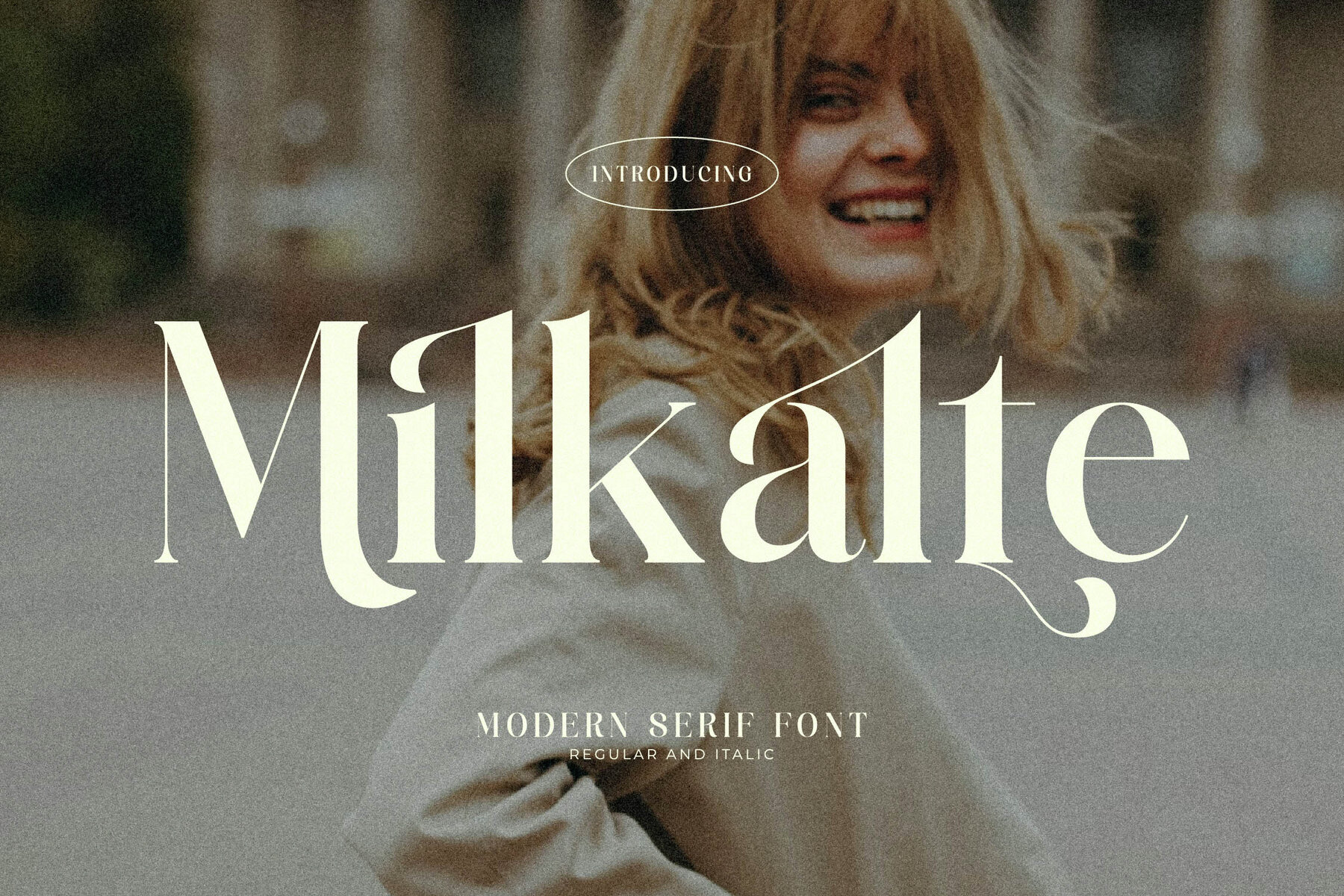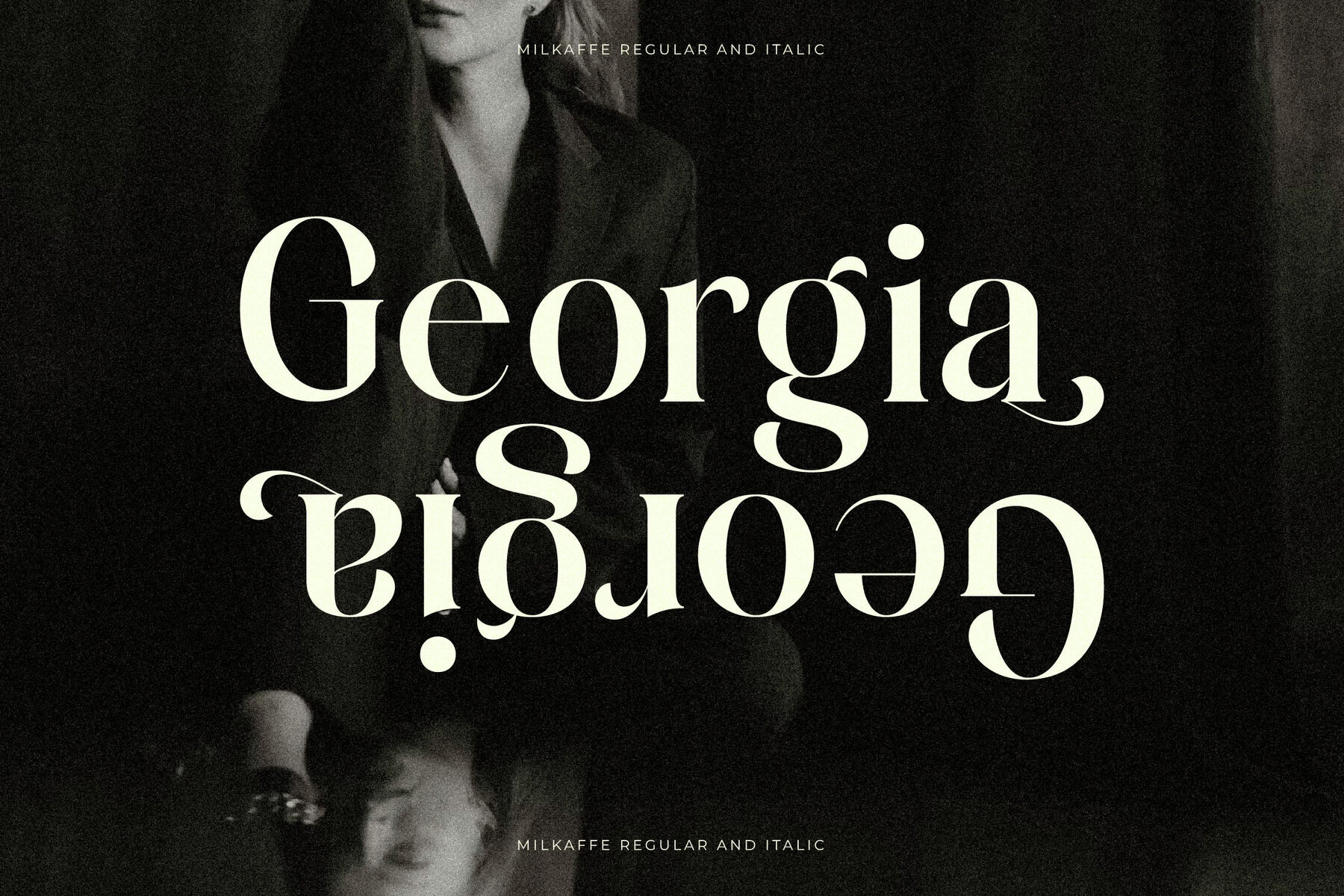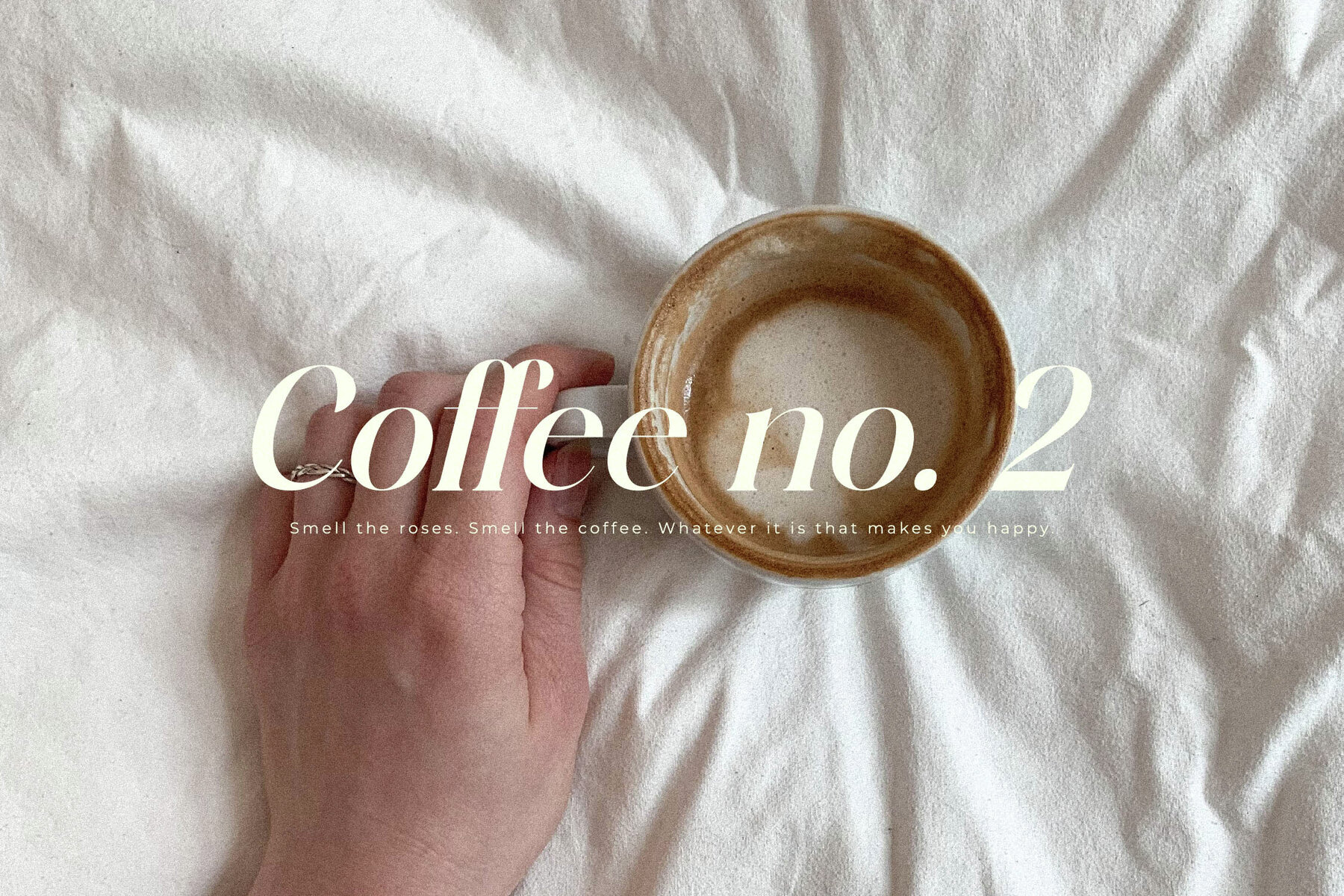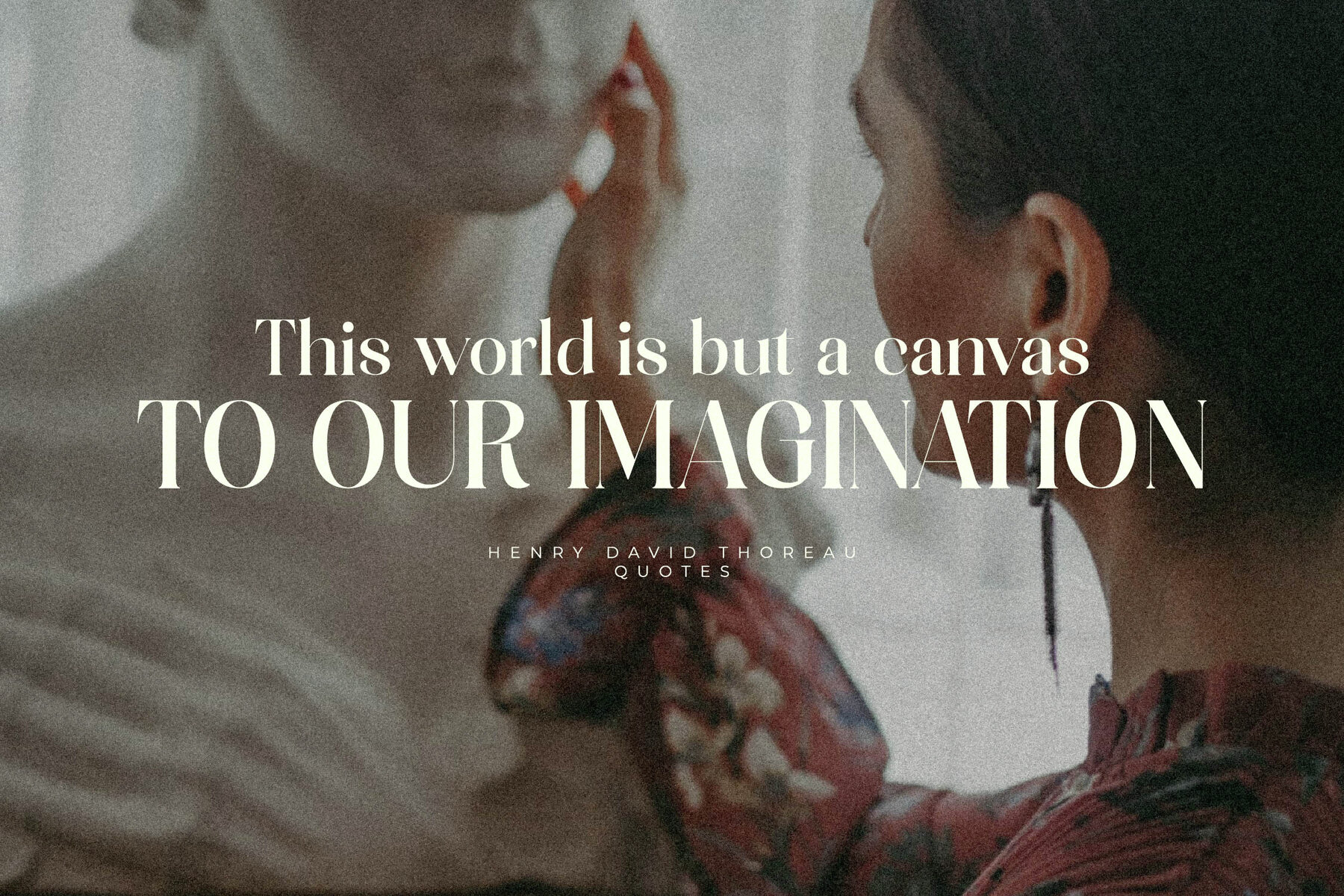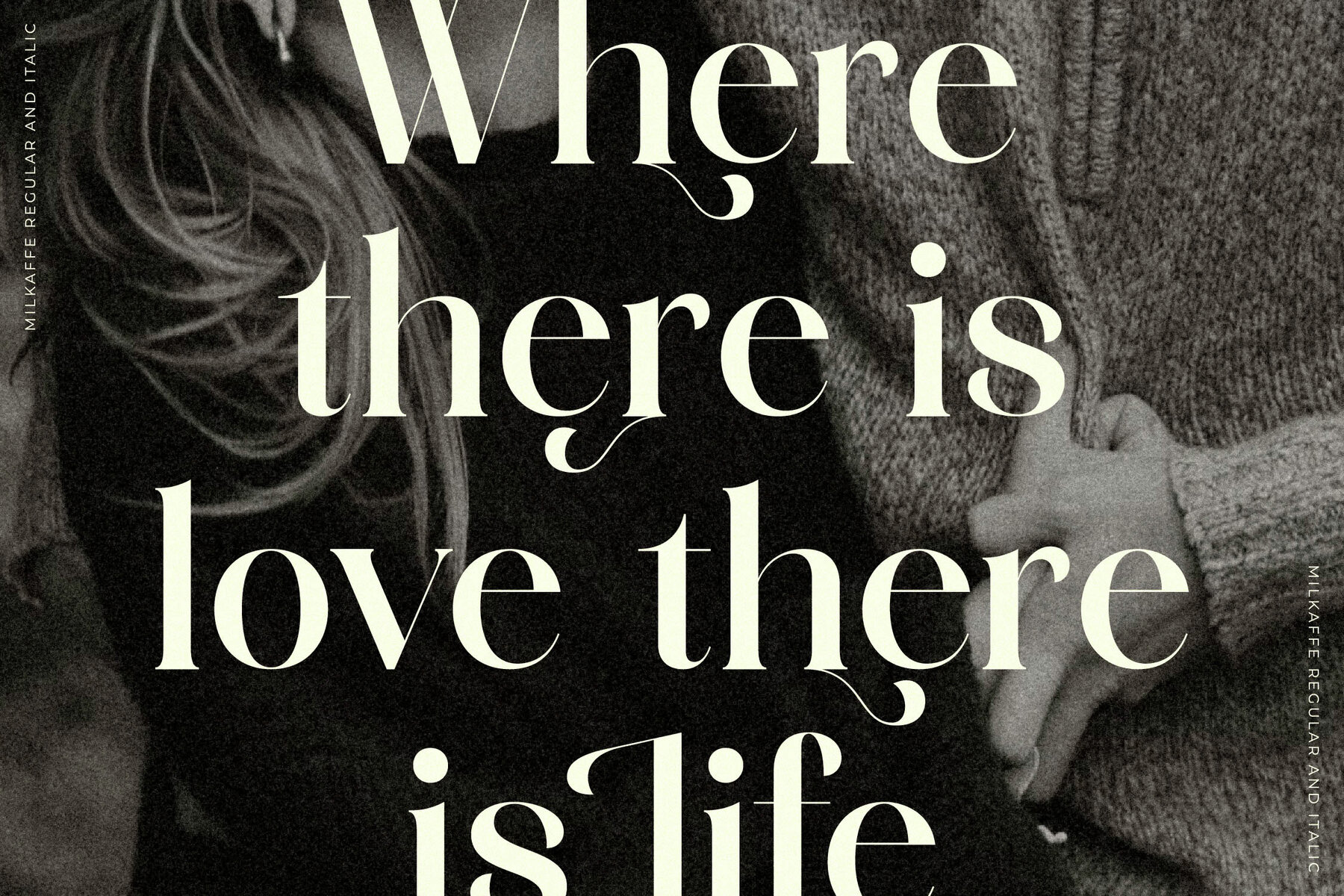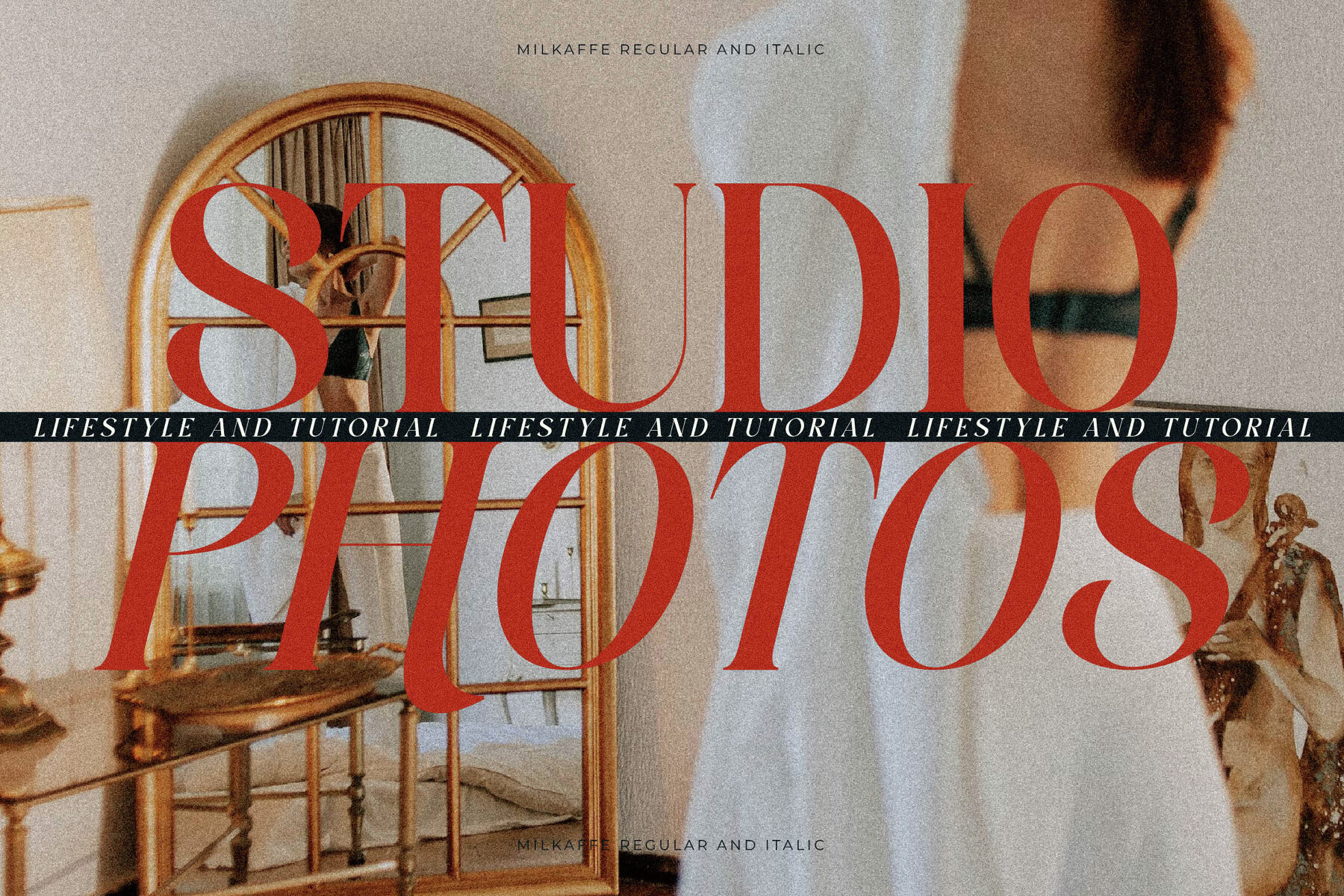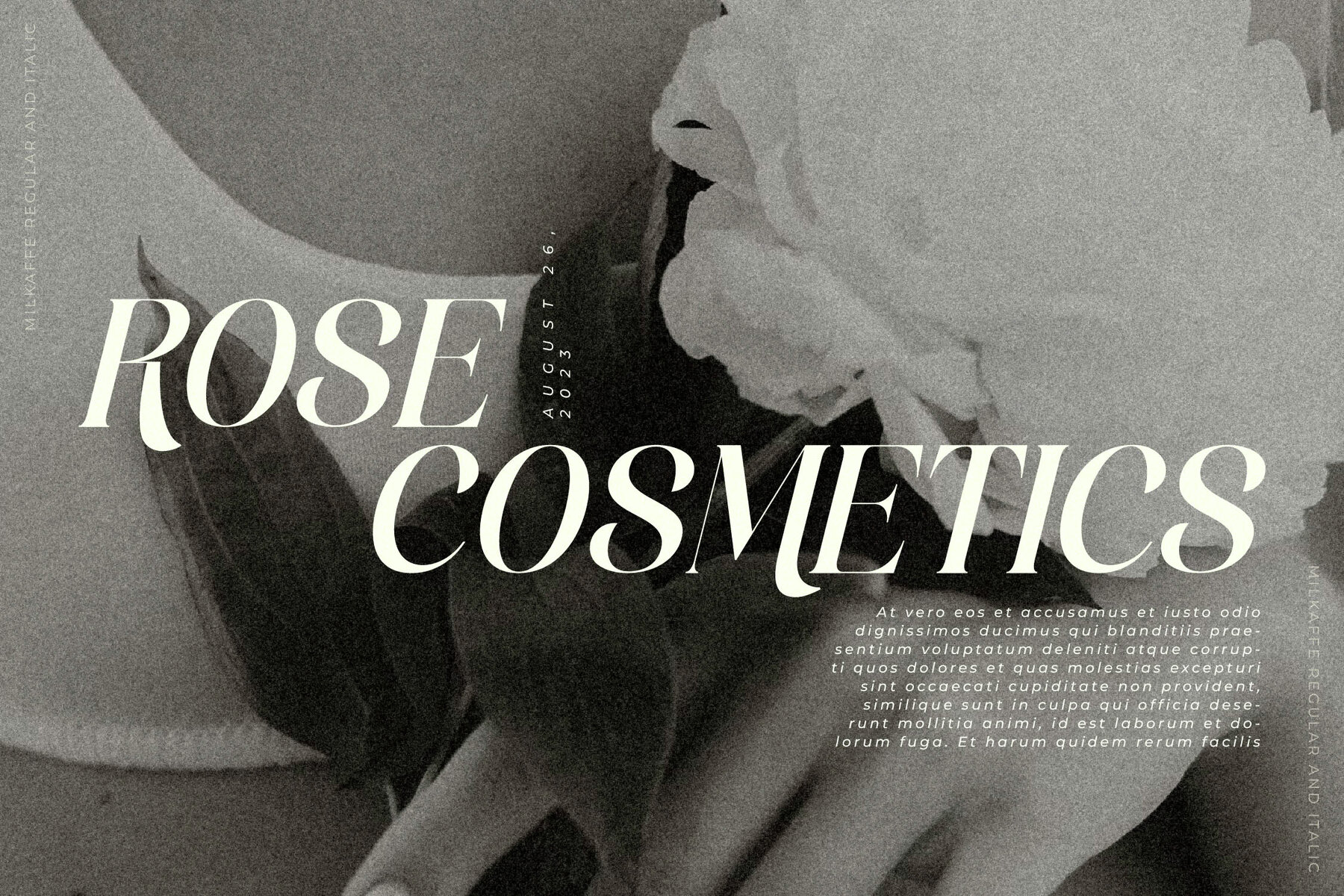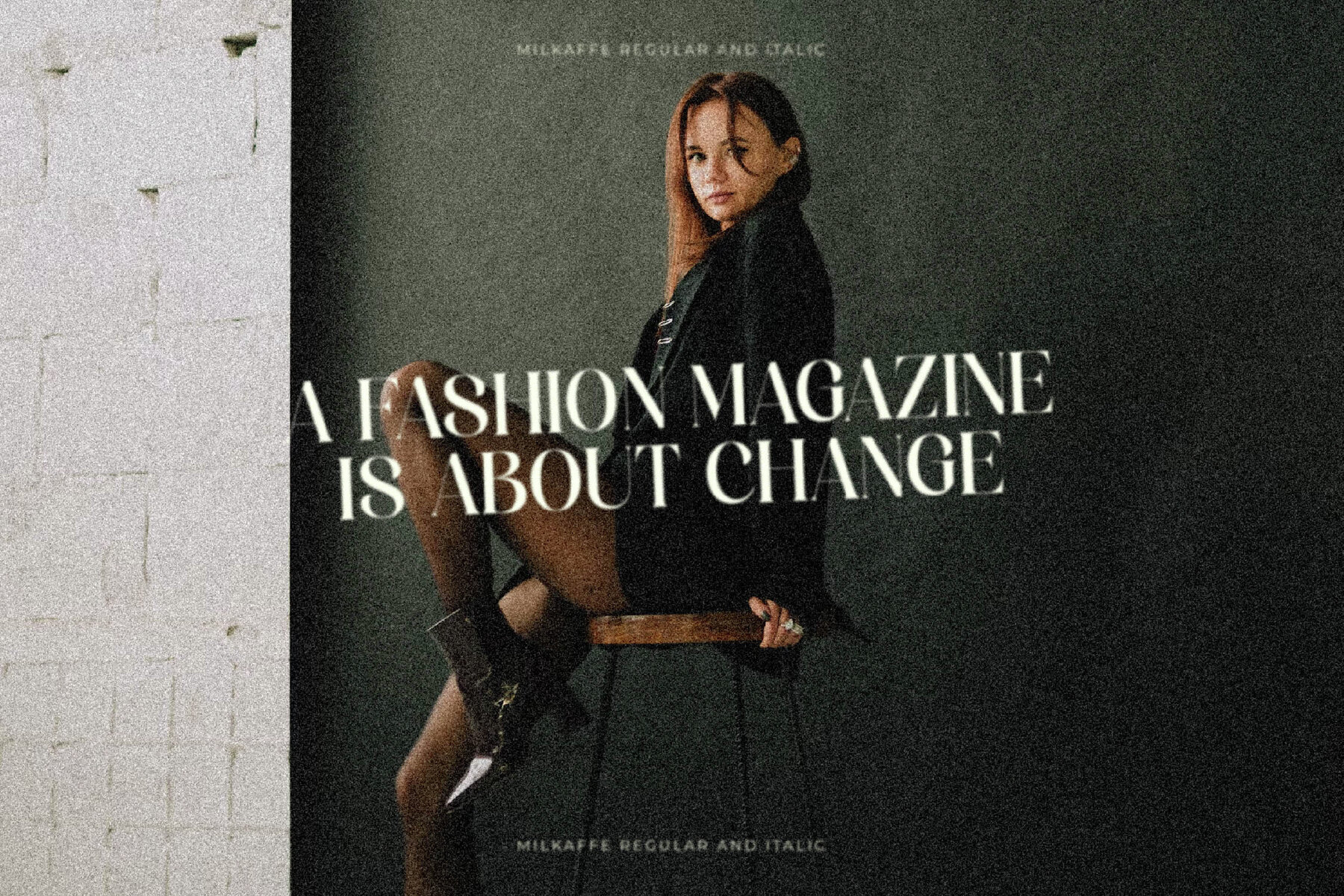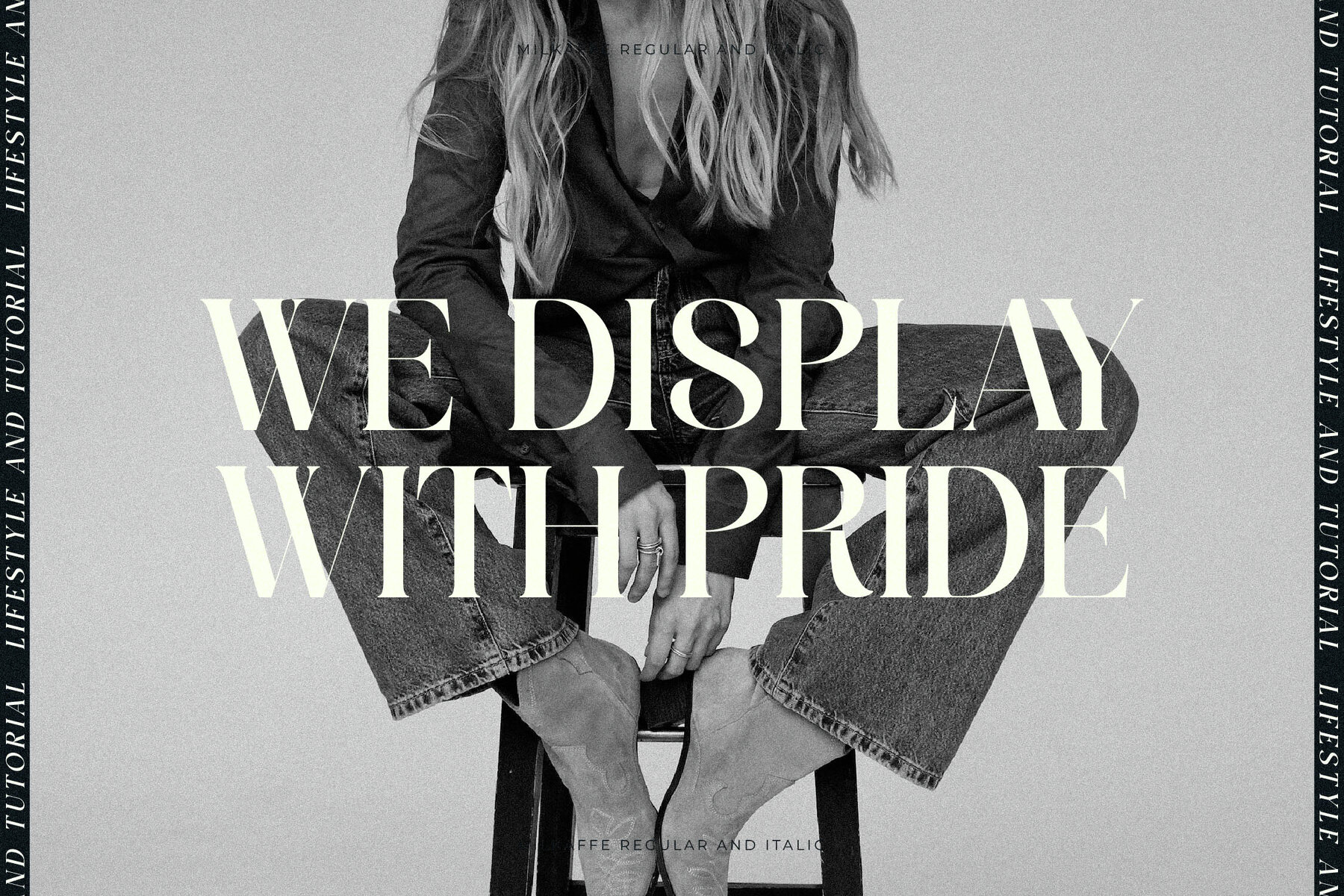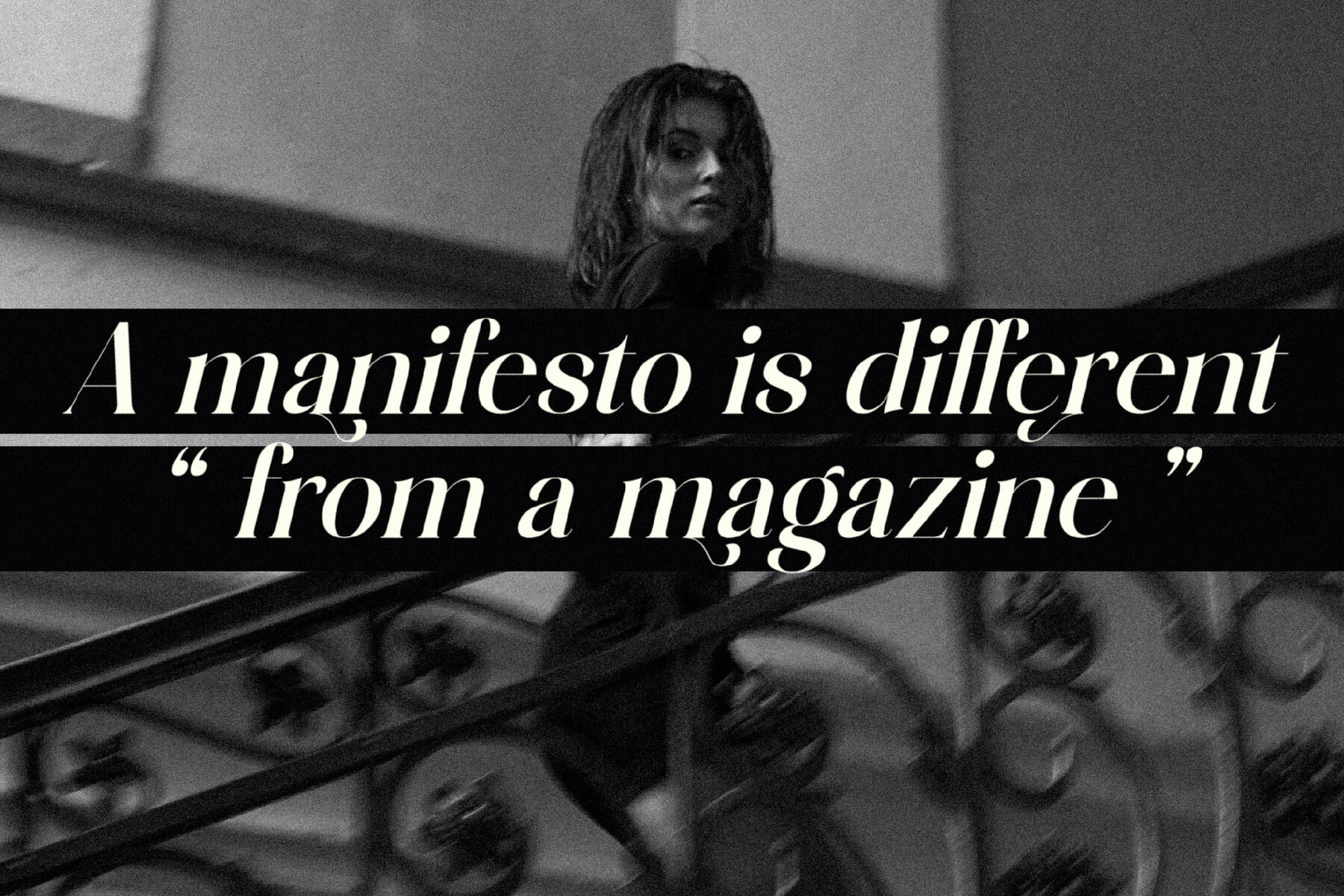
Milkalte Font
Milkalte Regular
Milkalte Italic
Milkalte Typeface excels in merging modernity with classical serif aesthetics. This typeface presents a unique style ideal for conveying elegance and luxury. It seamlessly adapts to various applications, whether it's designing a refined logo, a sophisticated book or movie title, a high-end fashion brand, or stylish typography for magazines and apparel. Its versatility and aesthetic appeal make it a valuable asset to any creative project.Milkalte Typeface: A Blend of Modern and Classic Elegance